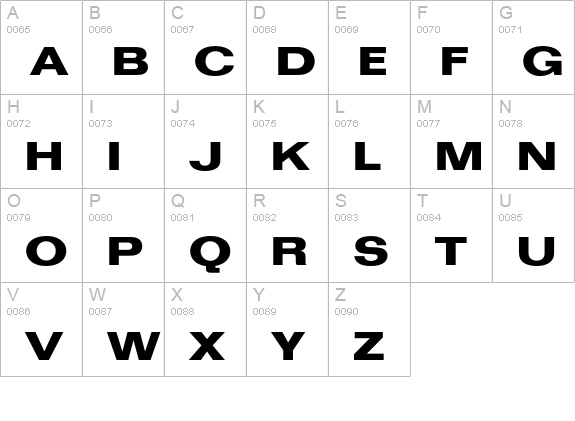
Folio Bold Extended is a strong, high-contrast, extended-width variant in the Folio typeface family \xE2\x80\x94 well suited to headlines, attention-grabbing titles, and strong calls-to-action.
Folio Bold Extended font is a striking and versatile typeface that exudes power and modernity. With its bold and extended design, this font commands attention and creates a strong visual impact. Whether used for headlines, titles, or branding, Folio Bold Extended delivers a bold statement with its clean lines and sharp edges. The best part? Folio Bold Extended font is free to download at FontsMarket.com. This means you can easily access this powerful typeface for all your design projects without any cost. So why wait? Elevate your designs with the impactful and bold aesthetic of Folio Bold Extended font today.